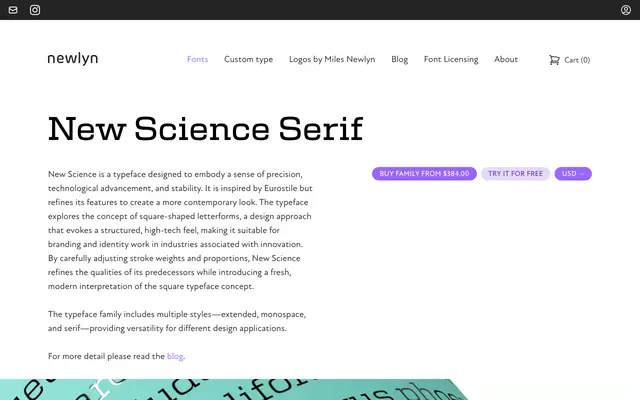
New Science Serif
New Science Serif specimen from Newlyn
A geometric serif built on square letterforms inspired by Eurostile, refined for contemporary branding and identity in technology-adjacent industries.
Part of the wider New Science collection by Miles Newlyn, this serif variant extends the family's square-form concept with the addition of serifs, sitting alongside extended and monospaced cuts. Six weights from Thin to Bold cover a broad tonal range, and a stylistic set labelled Century-Digital offers an alternate character direction. The tight, rectilinear structure makes it most at home in contexts where precision and a high-tech register are required.
Square-shaped letterforms derived from the Eurostile tradition, with serifs added to create a high-tech geometric serif; the structured, rectilinear forms place it firmly in geometric serif territory with a technological inflection.